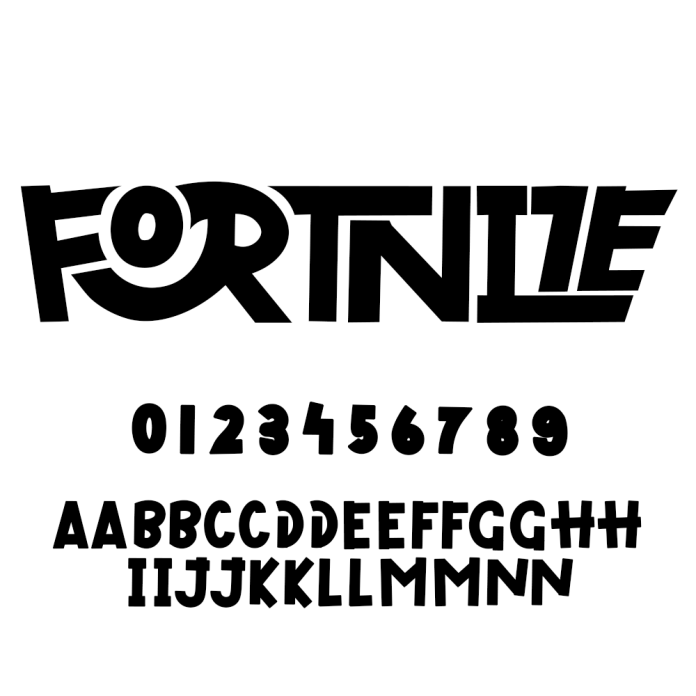
Fortnite Font
Fortnite Font is a magical script font carefully created with a touch of elegance. Whether you’re looking for fonts for Instagram or calligraphy scripts for DIY projects, this font will turn any creative idea into a true piece of art!